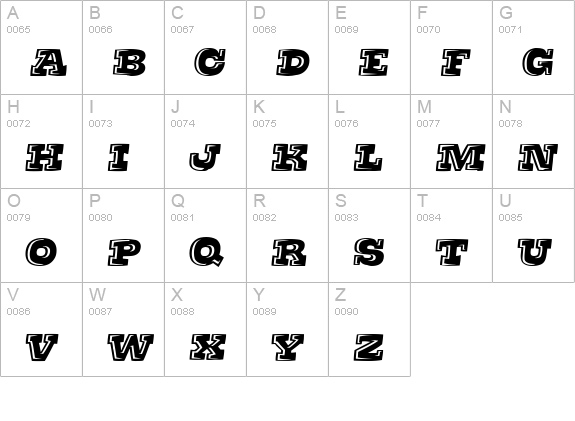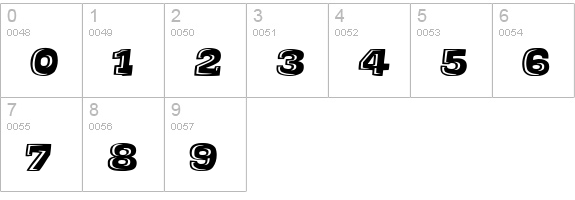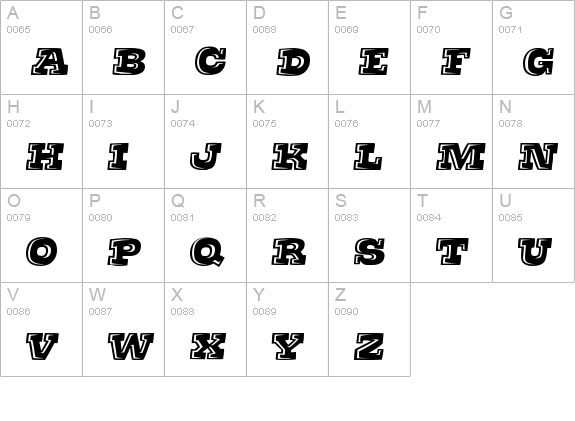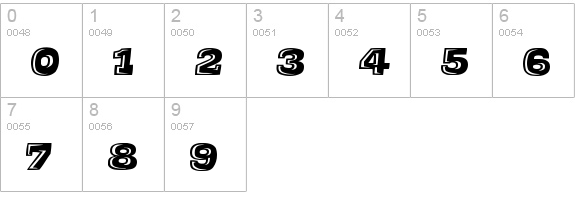
Thats Super Font Details
Introducing the captivating Thats Super font, a stunning typeface that exudes energy and vibrancy with its unique design. This font is the perfect blend of modernity and playfulness, making it an ideal choice for any creative project. Thats Super font boasts a wide range of stylish characters that are bound to leave a lasting impression. Each letter is meticulously crafted, showcasing intricate details and captivating curves that effortlessly catch the eye. From its bold and strong uppercase letters to its elegant and flowing lowercase characters, this font offers a harmonious balance that is both visually appealing and easy to read. One of the most remarkable aspects of Thats Super font is its versatility. Whether you are designing a logo, creating eye-catching social media posts, or designing a website, this font has the ability to adapt to any project and elevate its overall aesthetic. Its distinct personality shines through in any context, making it a true standout in the world of typography. But what makes Thats Super font even more remarkable is that it is freely available to download at FontsMarket.com. This means that you can easily access this exceptional font and bring a touch of magic to your designs without any hassle or cost. With just a few clicks, you can unlock the full potential of Thats Super font and unleash your creativity. So why wait? Discover the limitless possibilities that Thats Super font has to offer. Download it for free at FontsMarket.com and let your imagination soar. Whether you are a professional designer or a passionate enthusiast, this font is sure to become an essential tool in your creative toolkit. Embrace the power of Thats Super font and turn your design visions into captivating realities.